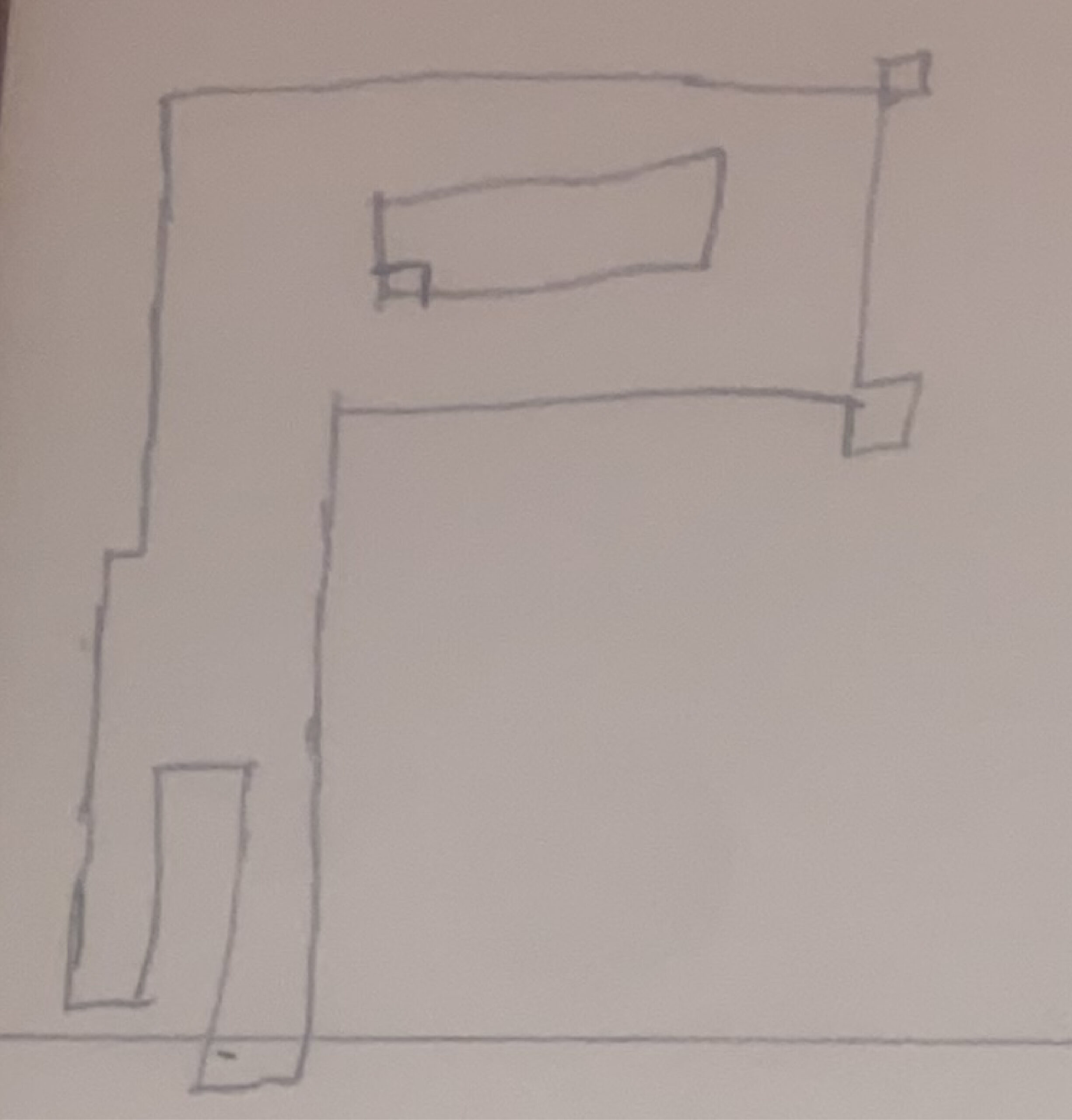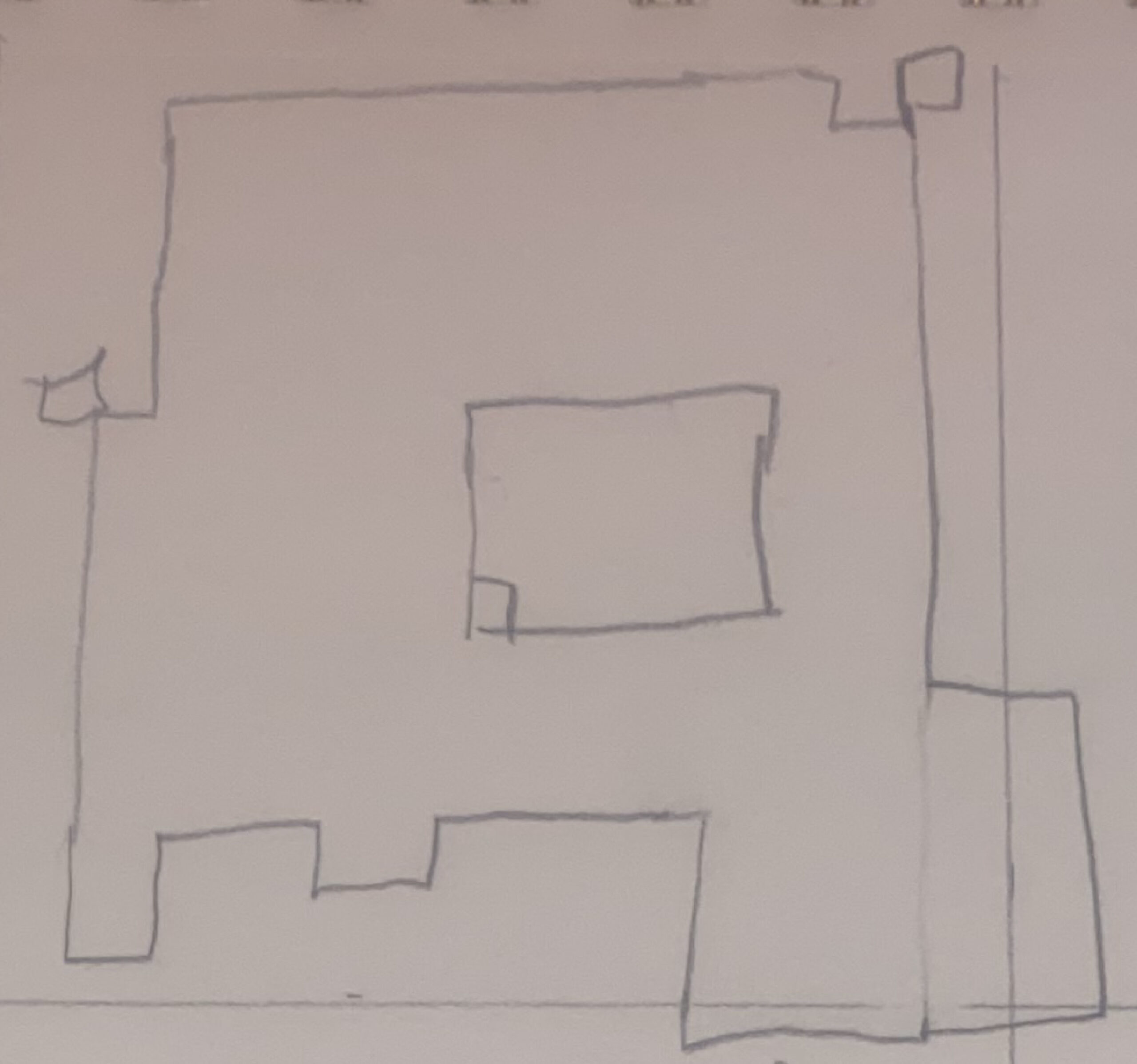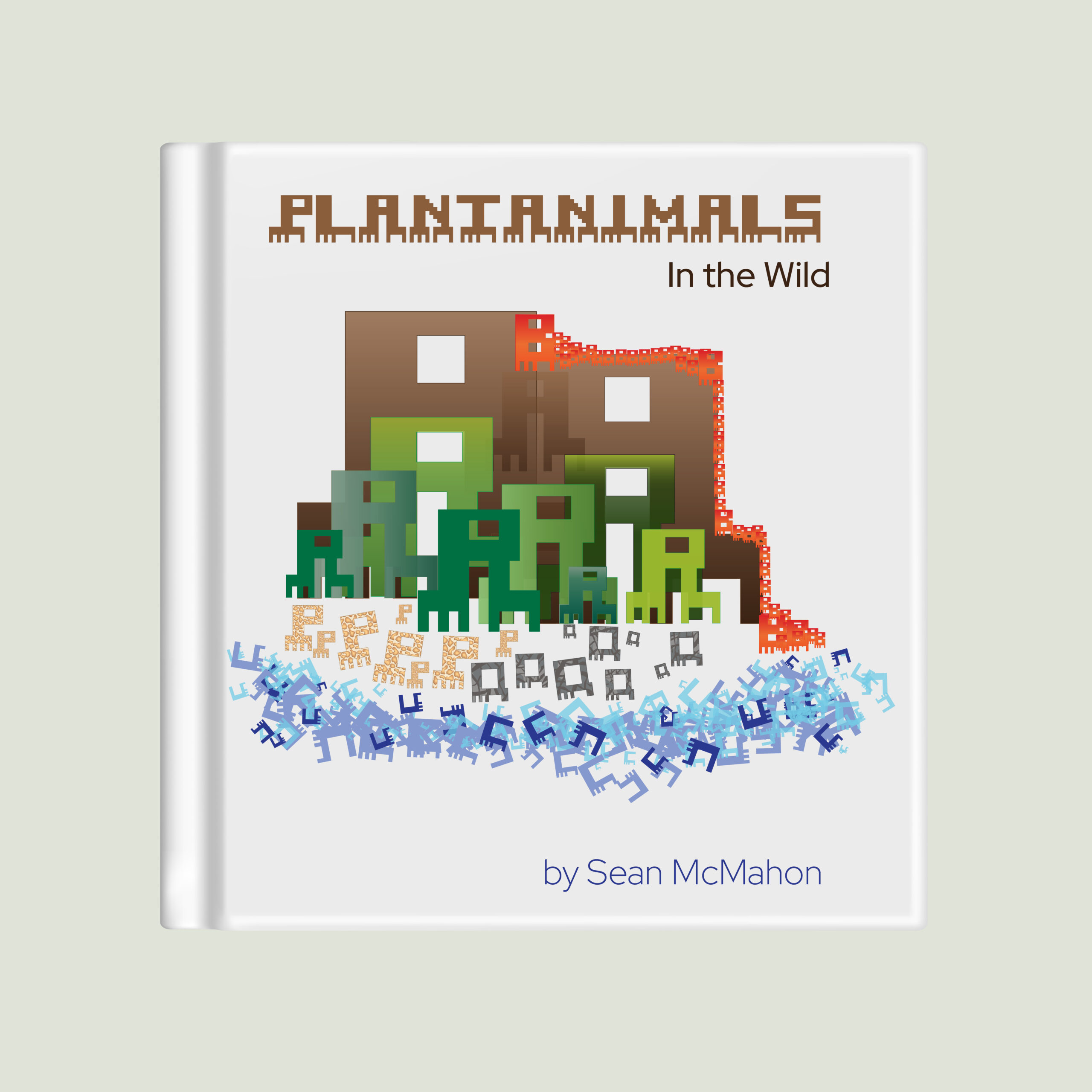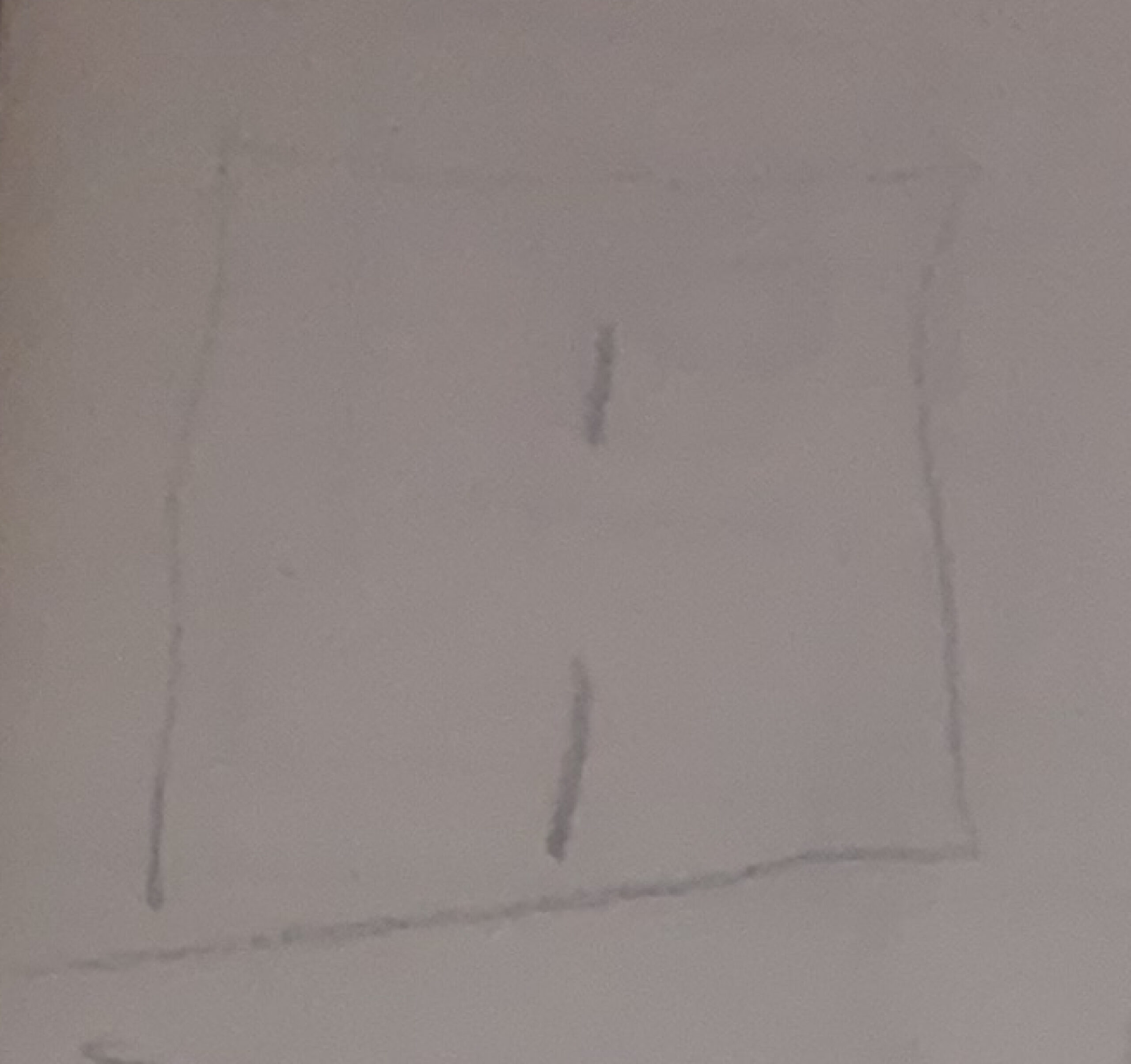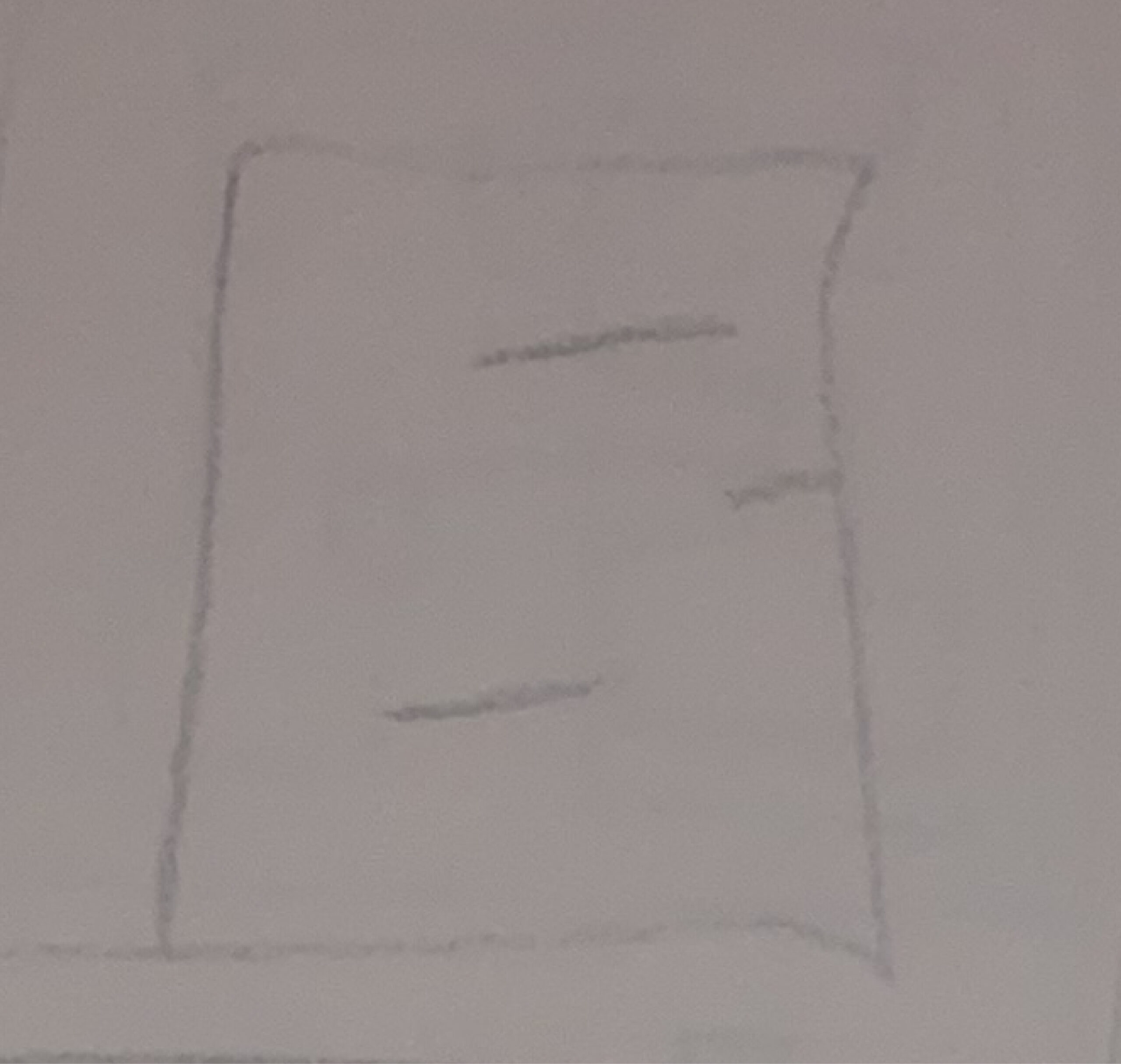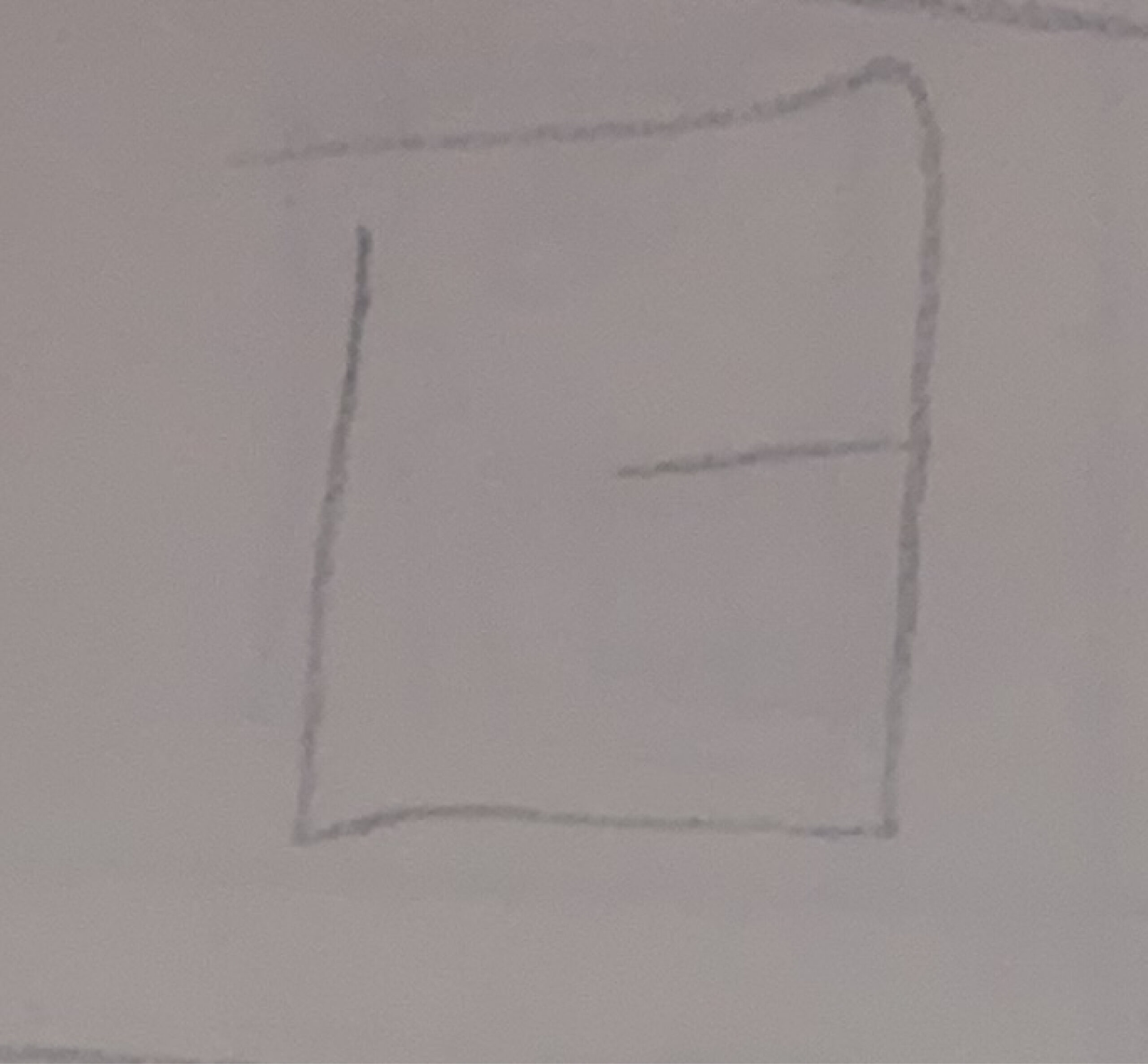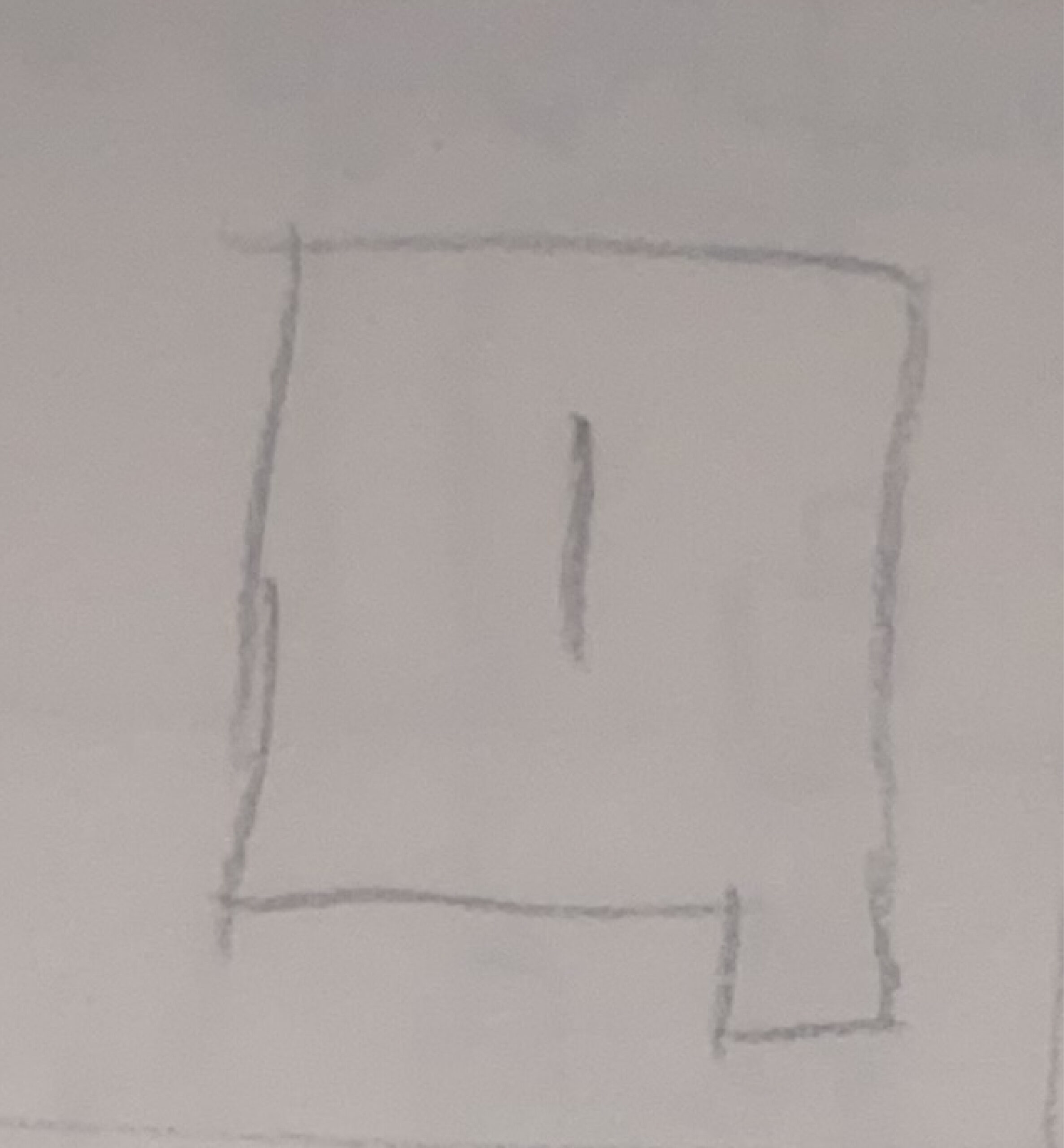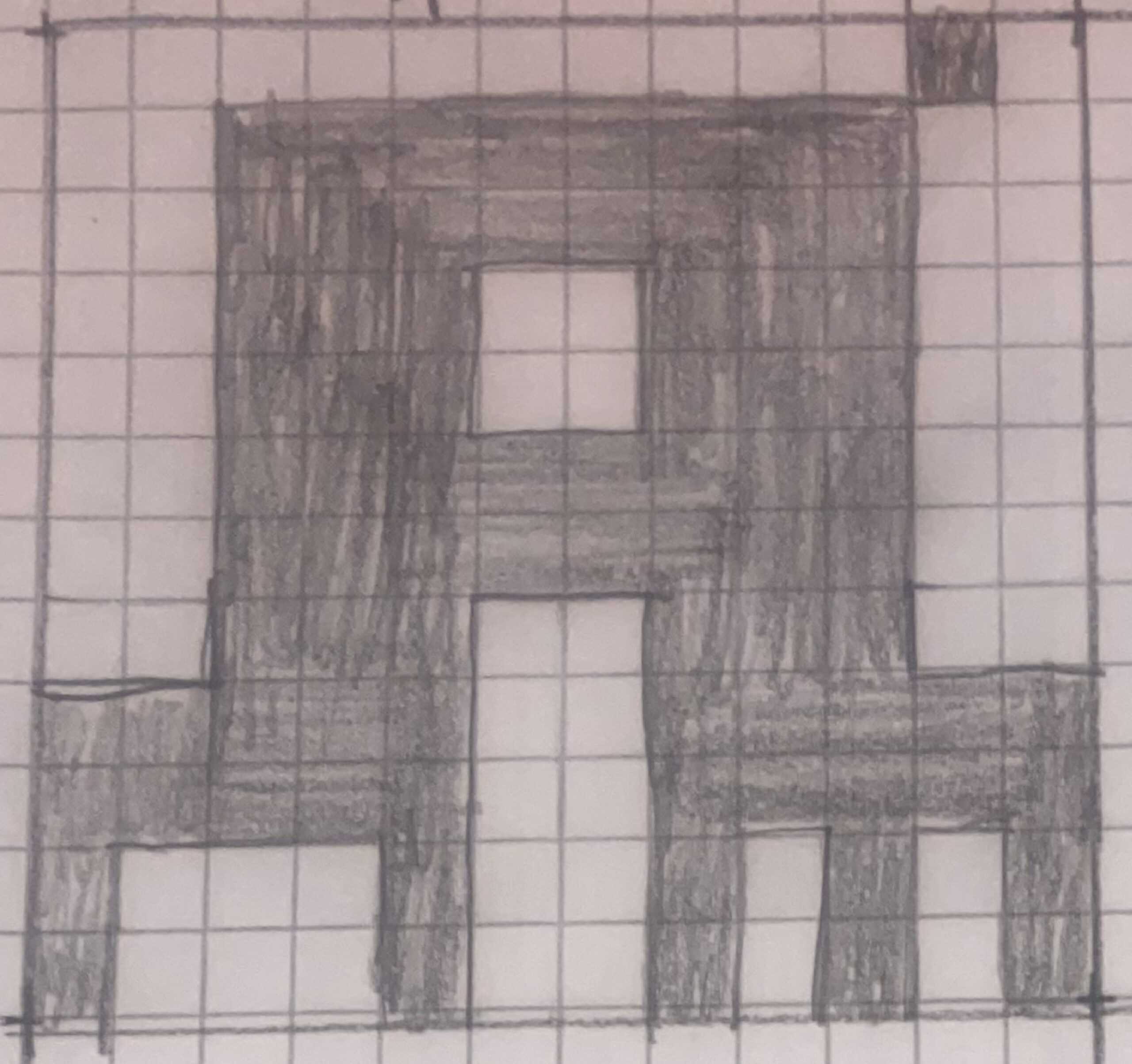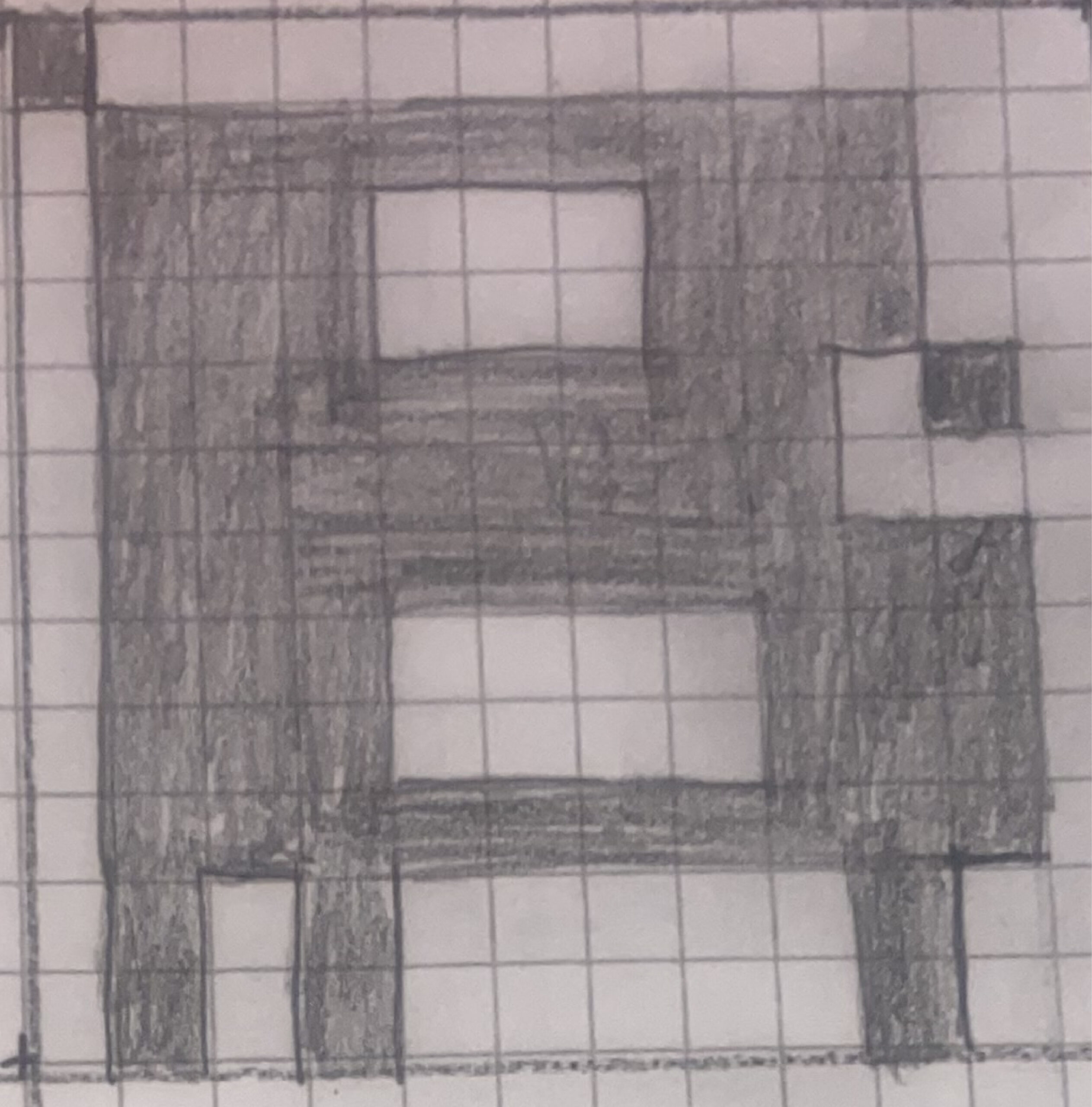
Plantanimal Textorganisms Typeface
What if a typeface had taken its first slithers out of the primordial soup in the same manner that the rest of life on this planet had? What if it had evolved through time? What would it look like? How would it differ from typefaces that have been influenced by humanity? Using a grid system, plantanimal textorganisms evolved. With a nod to nature, and influence from pixelation and 8-bit artwork, it is a versatile display typeface.
Full Typeface
Background
Plantanimal Textorganisms is a new display typeface that evolved out of a desire to create design that is more organic and influenced by the architecture of nature. It is inspired by the root systems of trees and plants, animals and their limbs and claws, and the earth. It also can be used as a retro typeface and is great for video games, technology and science fiction. This typeface is appropriate for work that is conceptually grounded in nature, video games, or a general fight the power sensibility.
Target Audience
People who challenge the status quo. Nature lovers. Animal lovers. Lovers of retro games and pixilated imagery. People who appreciate the way that technology, typography and nature have all evolved.
Design Problem
Working in a strict grid system, create a typeface that both expresses a perspective, and adheres strictly to the system. Create a typeface that is influenced by nature, rather than by humans or their architecture. Create a typeface that is versatile and can be used as a display font in serious or fun instances.
Design Process
For the uppercase alphabet and the numerals 0-9, I worked in a system that was a 12×12 grid of boxes, and the only option was to leave a box filled in or empty. It was important the letters be very heavy at the bottom, the same way that a mountain or a large tree has a wide base. I chose a concept that used the bottom two boxes for the roots/claws/feet of the plantanimals. For the uppercase they had to have three roots on the left side and one claw on the right side. Then I worked on growing their bodies/branches/mountains/hills up from these roots. I developed the letters ABCPQR for the uppercase alphabet, and then developed the rest of the uppercase alphabet based on these letters. For the lowercase alphabet, the grid was 9×9 squares and they had to have two roots on one the left side and one on the right. The lowercase alphabet and numerals where developed later; using the same system. Then, the typeface was applied to examples that exemplify its connection with nature, whimsy, humor and old school pixilated fun.
Type Anatomy
The type anatomy for this new typeface includes the features unique to it, like the plantanimals’ roots and the claws
Backwards Feature
A few of the characters may appear backwards to people who are used to reading typefaces that are based on human systems. To the Plantanimals and Textorganisms, these are not backwards characters, just the way that they look. The users of the typeface are encouraged to change the letters direction and orientation in experimental ways. Besides, for letters like W and H the only way to tell if they are backwards is to look at their roots and claws.
Pairing Guidelines
Many Sans Serif typefaces are appropriate to pair with Plantanimal Textorganisms. Because it is an unconventional typeface, it is recommended that it only be paired with sans serif fonts that are clear and easy to read. It is important to let Plantanimal Textorganisms stand out, to be the main embellishment, and to pop in any way that it is used. The paired sans serif font serves to frame Plantanimals Textorganisms so that it stands out. It is a great typeface for your bold titles, followed by a simple sans serif body type.
Typeface Evolving
As the plantanimals and textorganisms continue to evolve, they have created new letters. Though typographic geneticists are worried that the plantanimals will eventually mutate into just solid 12×12 black blocks, some of these interesting new letters have recently been spotted in the plantanimals herds and groves. Some of them look like they could be logos. The plantanimals are designing naturally in the wild.
Childrens Book, Plantanimal Textorganisms in the Wild
Jurassic Text Movie Poster
Dig Dug Video Game
Wildlife Magazine
Baby Groot Comic
Plantanimals Hat